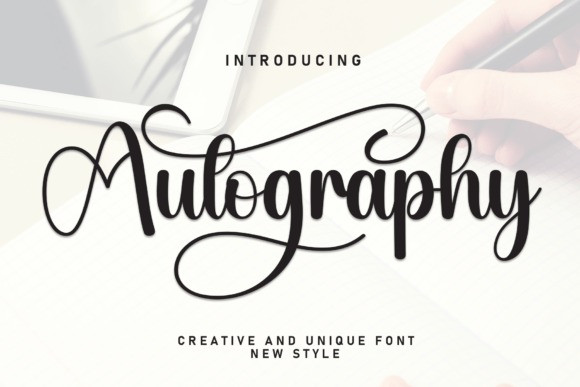
Autography Handwritten Type
Autography Handwritten Type is a fun and versatile handwritten font. Whether you’re using it for crafting, digital designing, presentations, or greeting card making, it’s perfect!